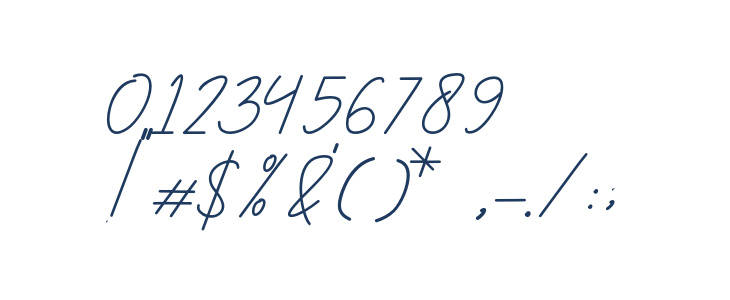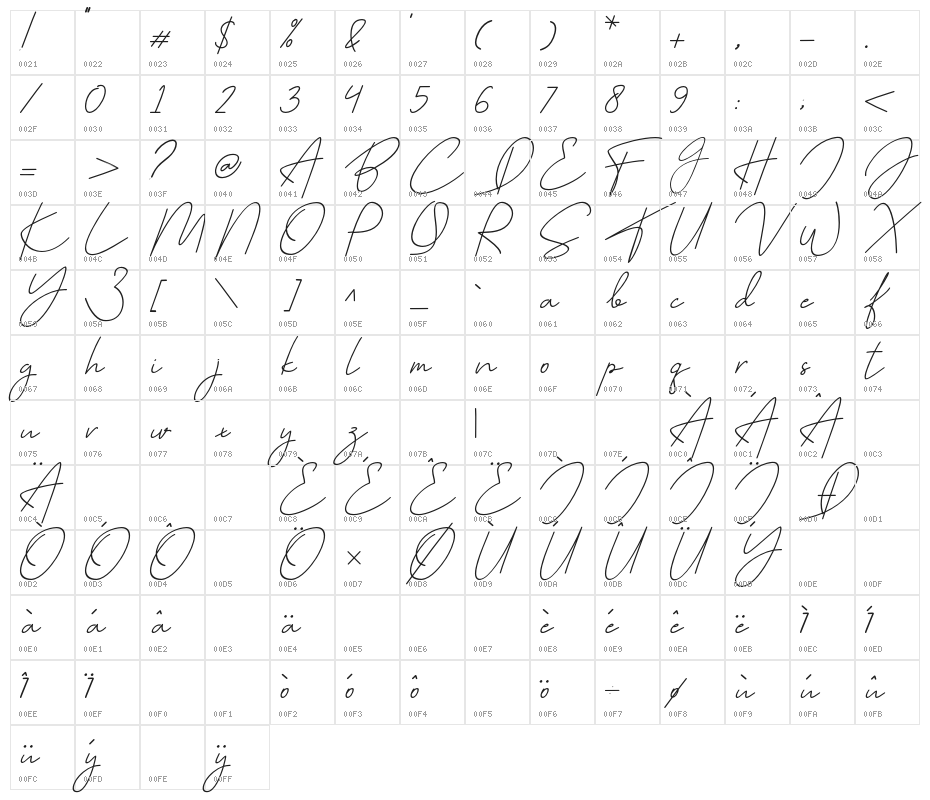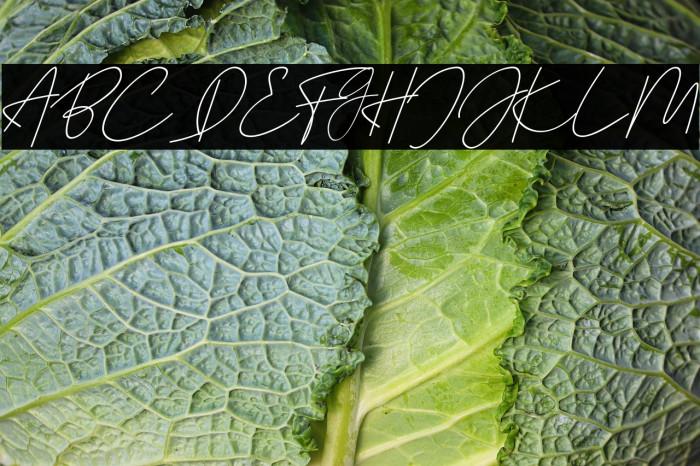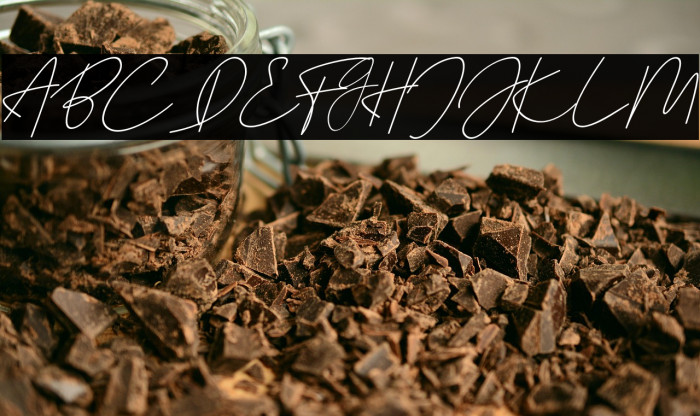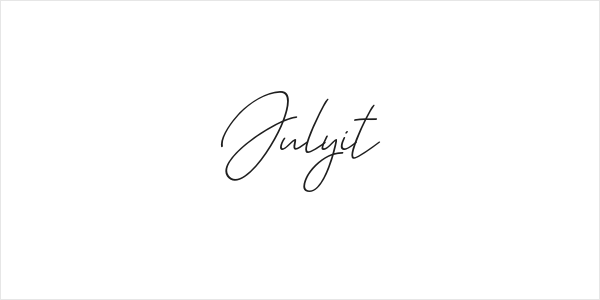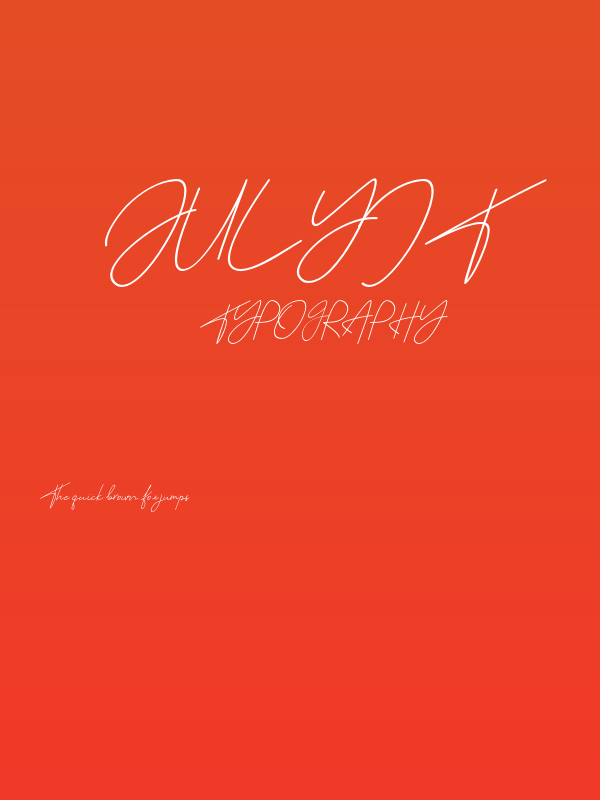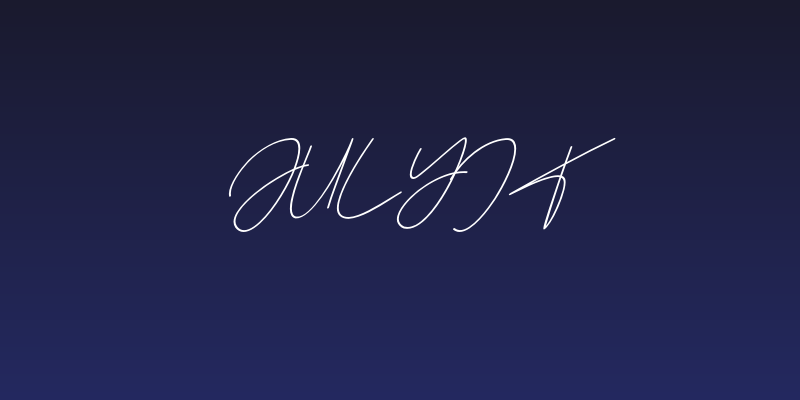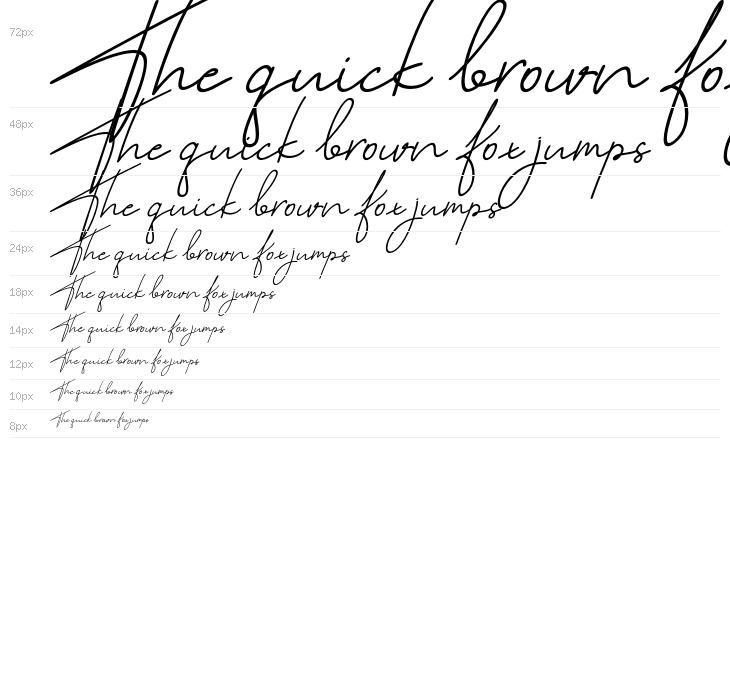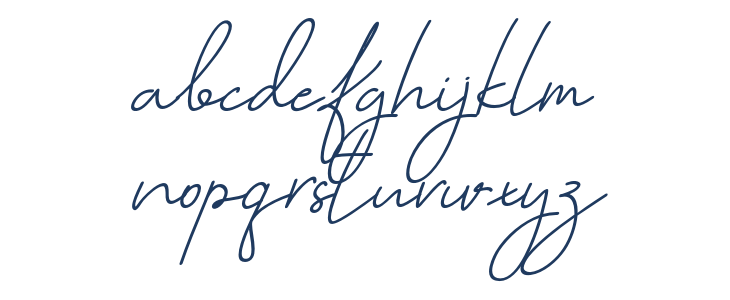
Julyit Font
Julyit Description
This font exudes a sense of elegance and fluidity, characterized by its cursive, handwritten style. The uppercase letters are tall and slender, with a slight slant that adds a dynamic feel. The lowercase letters are more compact, maintaining a consistent flow that mimics natural handwriting. The numbers are well-proportioned, aligning seamlessly with the overall aesthetic. Special characters are crafted with the same attention to detail, ensuring they blend harmoniously with the letters and numbers. The strokes are smooth and continuous, giving the font a cohesive and polished appearance. This font is perfect for projects that require a personal touch, such as invitations, greeting cards, or branding materials that aim to convey sophistication and warmth.
| Overall Style | Elegant, Handwritten |
| Use Case | Invitations, Personal branding, Greeting cards |
| Proposed Projects | Ideal for wedding invitations, personal branding, greeting cards, and elegant packaging designs. |